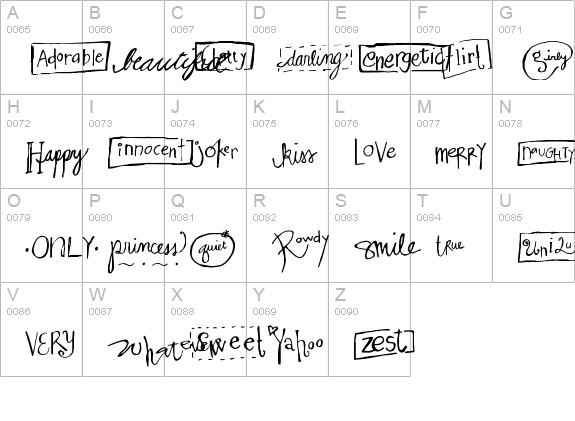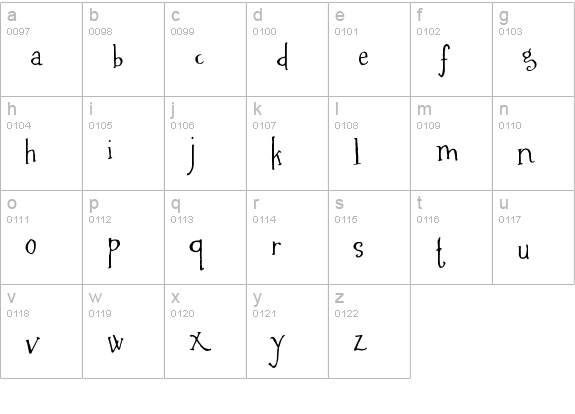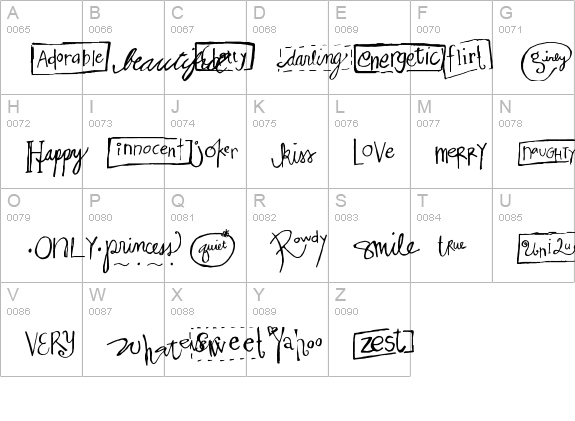
MA Flirty Font Details
Introducing MA Flirty, a playful and vibrant font that will add a touch of whimsy to any design project. With its charming curves and flirtatious appeal, this font is perfect for creating eye-catching headlines, logos, and social media posts that demand attention. MA Flirty is a versatile typeface that effortlessly combines elegance with a hint of mischief. Its carefully crafted letterforms exude a sense of confidence and allure, making it the ideal choice for those looking to make a statement. Whether you're designing a party invitation, a romantic greeting card, or simply want to add a touch of personality to your website, MA Flirty is sure to captivate your audience. What's even better is that MA Flirty is available for free! That's right, you can easily download this delightful font at FontsMarket.com, where it is freely accessible to all. Say goodbye to expensive font purchases and hello to creative freedom. With MA Flirty, you have the opportunity to enhance your designs without breaking the bank. So why wait? Let MA Flirty unleash your inner creativity and bring your projects to life. Download this enchanting font today at FontsMarket.com and discover a world of possibilities. With its free availability and irresistible charm, MA Flirty is here to make your designs stand out from the crowd.